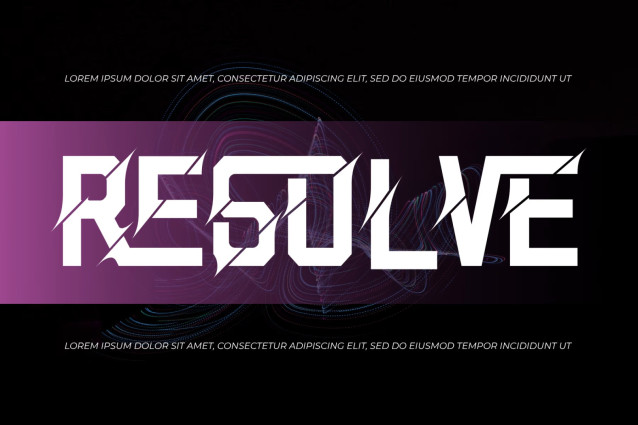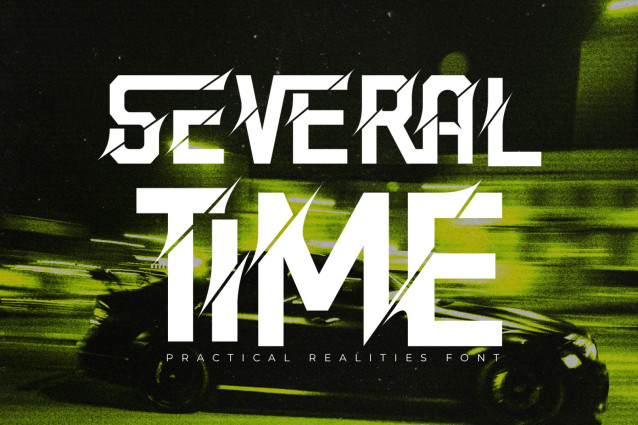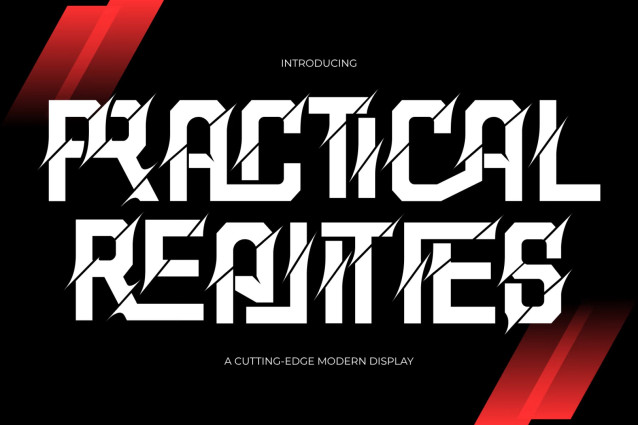
PRACTICAL REALITIES – CYBERPUNK FONT
PRACTICAL REALITIES – CYBERPUNK FONT is a bold futuristic display font engineered for high-impact visual communication. Featuring powerful geometric letterforms, sharp angular construction, and distinctive slash-cut details, this typeface creates a dynamic sense of speed, energy, and technological innovation. Every character is carefully crafted to deliver a strong and aggressive appearance while maintaining excellent readability and visual balance.
Inspired by cyberpunk culture, esports branding, sci-fi technology, and modern industrial design, PRACTICAL REALITIES is perfect for gaming logos, esports teams, futuristic branding, movie posters, action titles, automotive graphics, technology startups, sports apparel, digital products, album covers, and high-energy promotional materials. Its striking letterforms and razor-sharp details make it an ideal choice for designers looking to create bold, futuristic, and unforgettable visual identities that demand attention.